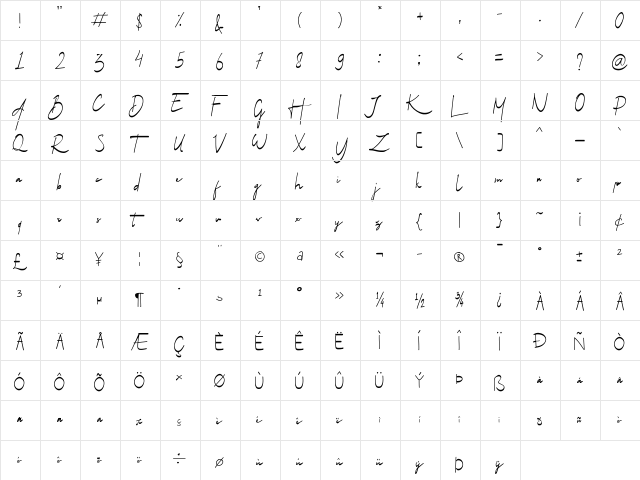
Jannatta Regular
Design Context for Jannatta Typeface
Jannatta is a composed and adaptable typeface that performs quietly and consistently across a wide range of design contexts.